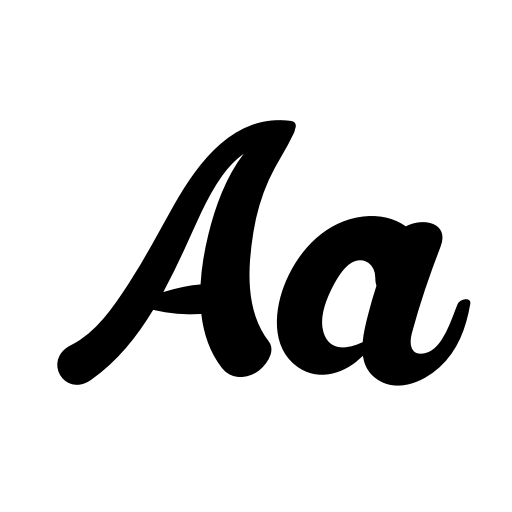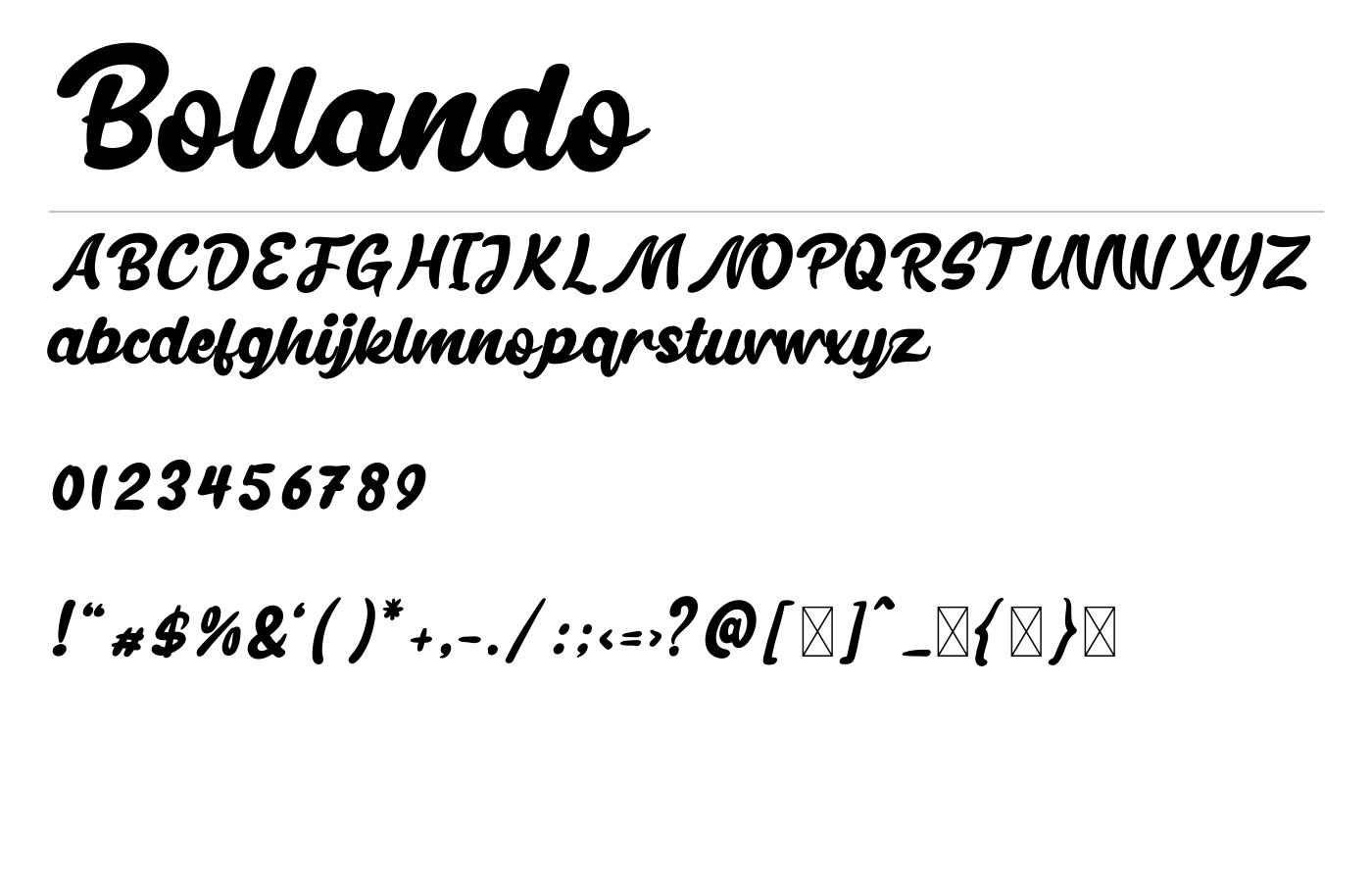
Bollando is a bold, cursive script font with a lively and playful personality. Its smooth, rounded strokes and moderate contrast create a friendly and approachable feel, ideal for branding, invitations, and headlines where a casual yet confident touch is desired. This font works well in designs that aim to convey warmth and creativity, making it perfect for lifestyle, food, and entertainment projects.
Bollando Font